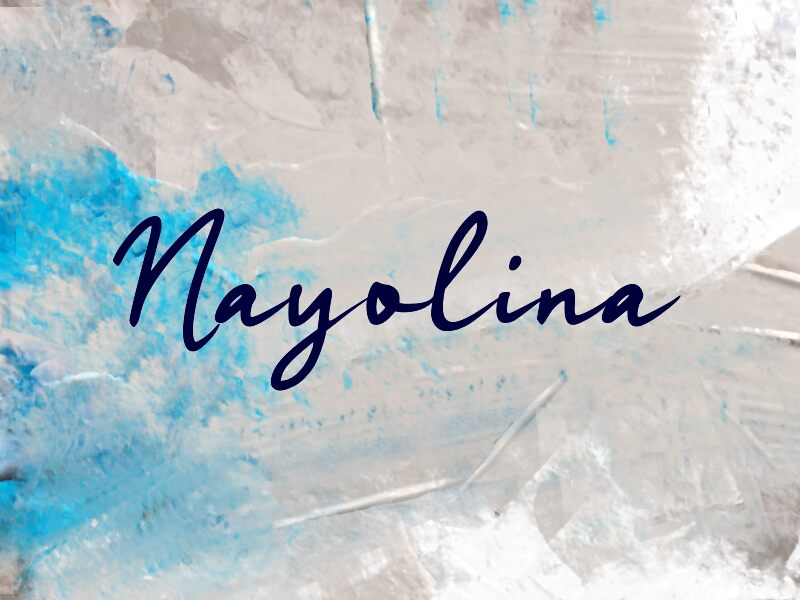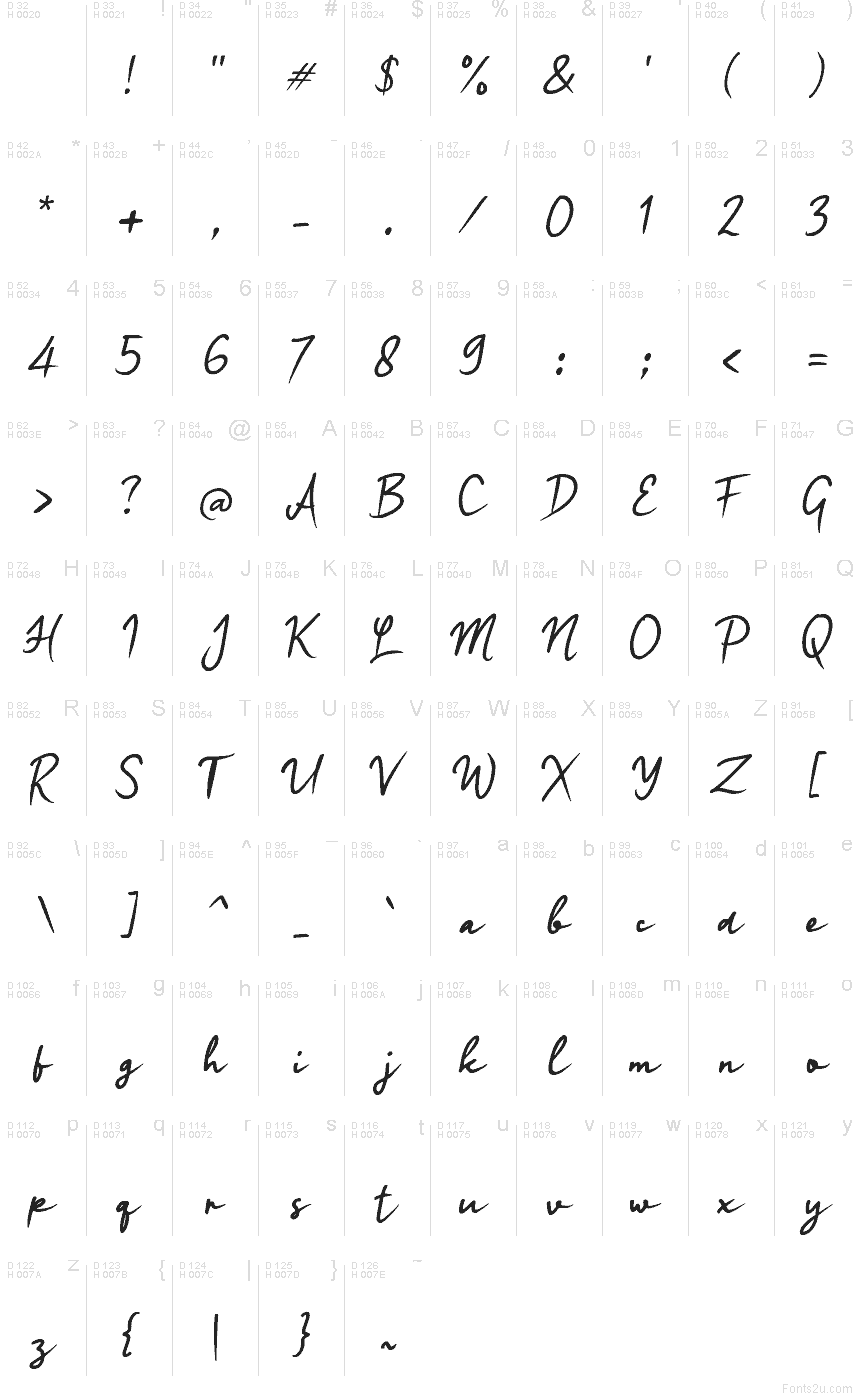
Nayolina
Nayolina font by wep is a free handwritten script typeface with an easy, ink-on-paper flow that feels like a confident personal signature. Its long, sweeping strokes and smooth connections create a relaxed rhythm, while the subtle tilt and rounded forms keep it friendly and approachable rather than overly formal. Letters feel like they were written with a slightly juicy brush pen—bold enough to stand out, but still airy and graceful.
Using Nayolina, you can bring a warm, bespoke touch to wedding invitations, brand logos, social media graphics, packaging, product labels, and quote posters. This free font shines when used large, where its loops and curves can really breathe; pair it with a clean sans serif for body text to keep layouts balanced and readable.